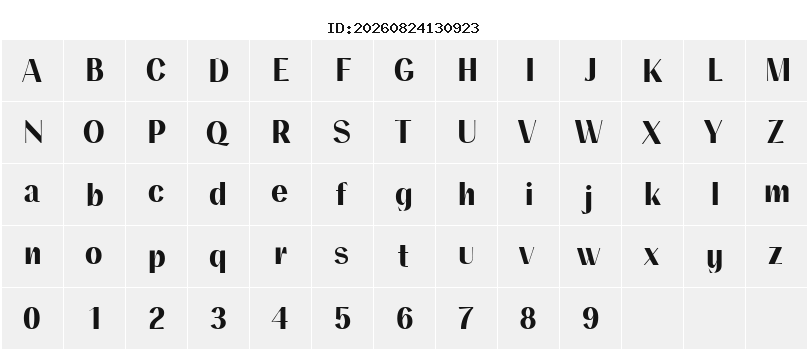
• Font Name: Sachalin
• Full Font Name: Sachalin
• PostScript Name: Sachalin
About Sachalin.ttf
Sachalin.ttf is a modern, elegant sans-serif font designed for ultimate readability and visual harmony. Perfect for branding, headlines, web design, and print materials.